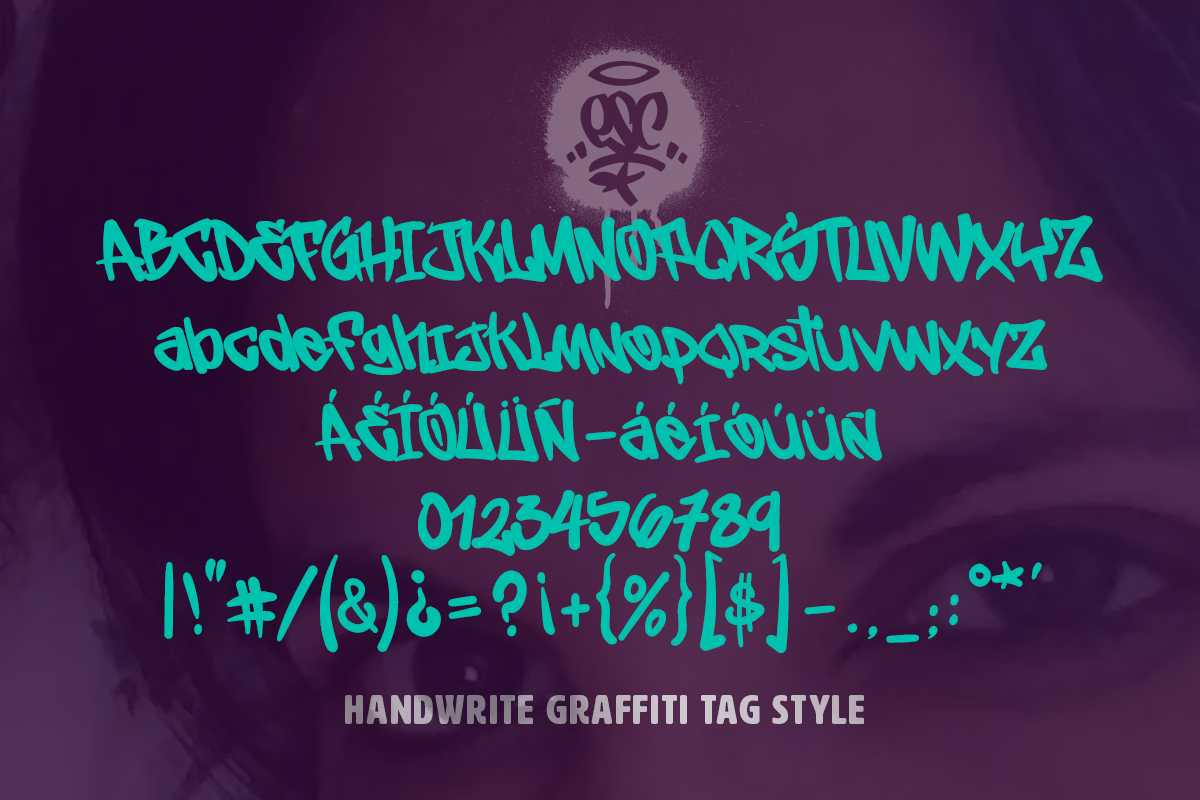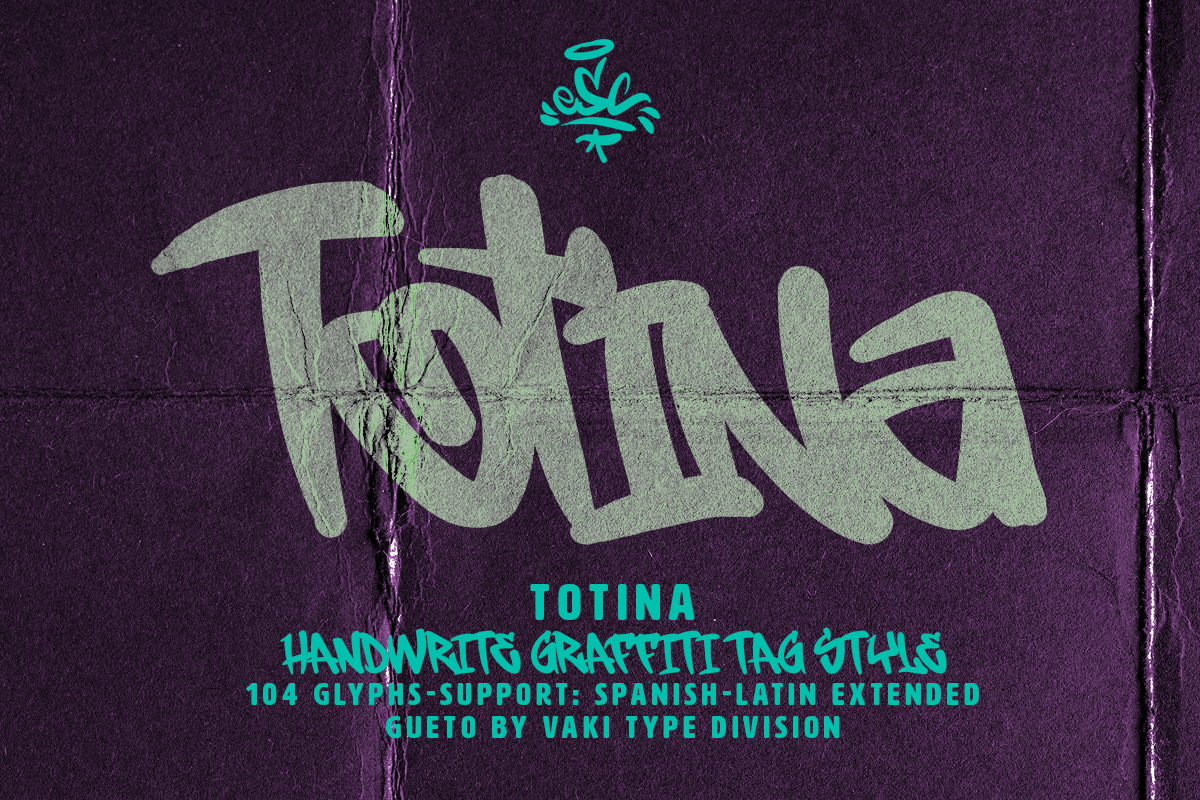
TOTINA
TOTINA is a calligraphic graffiti tag typeface designed for legibility without losing the street. Bold, fluid, and controlled, every letterform carries volume and flow while staying readable at any size. Not a wild style, not a throwup, something in between: the sweet spot where aggression meets craft, where the tag has enough edge to feel real and enough structure to work professionally. Built from decades of hand experience, named after someone worth the dedication.
Perfect for branding, logotypes, streetwear graphics, editorial headlines, and poster design. Urban energy with a professional finish.
Style: Handwrite graffiti tag
Glyphs: 104 · Uppercase and Lowercase
Support: Spanish-Latin Extended
TOTINA, from ESC, east side conexion / conexion del este and made by VAKI TYPE DIVISION.